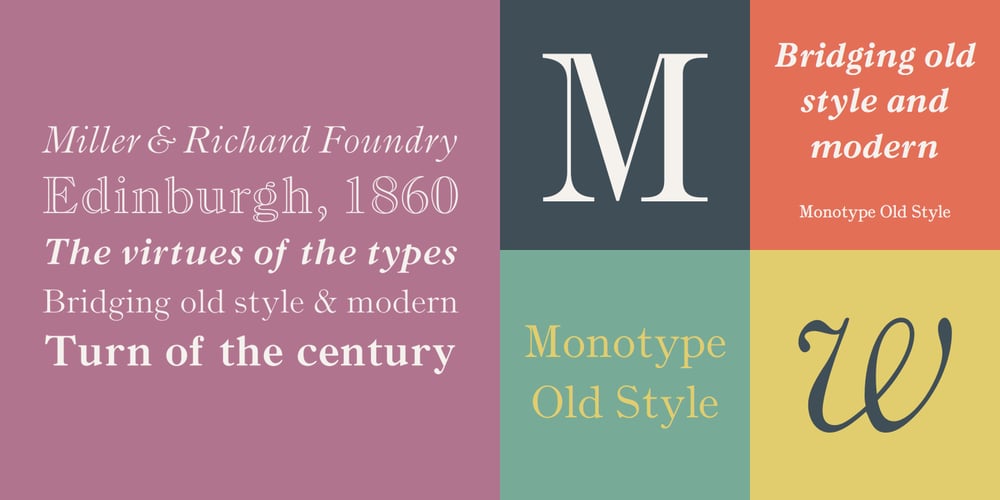
Monotype Old Style
Monotype Old Style font
Monotype Old Style Font Family was designed by Monotype Design Studio, Miller and Richard Foundry and published by Monotype. Monotype Old Style contains 5 styles and family package options. Monotype Old Style is a nineteenth century update of Caslon Old Face with characteristics of the moderns built in. Monotype Old Style was recut by Monotype in 1901 from a Stephenson Blake & Company version. The design originated at the Miller and Richard foundry in 1860. In some respects it can be seen as transitional between old style and modern, but the spirit of the old styles predominates. By the turn of the century it had become a successful rival to the moderns. The Monotype Old Style font family is an attractive design which gives a light, airy feel to text.